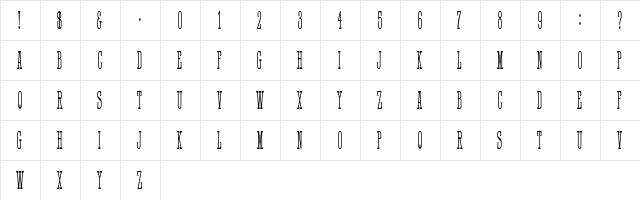
HFF Quick Draw Regular
| Foundry | Have Fun with Fonts |
| Designer | Have Fun with Fonts |
| Year | 2010 |
Design Context for HFF Quick Draw Typeface
HFF Quick Draw offers clean, dependable letterforms without strong stylistic allegiance, making it a practical choice for designers who need flexibility.